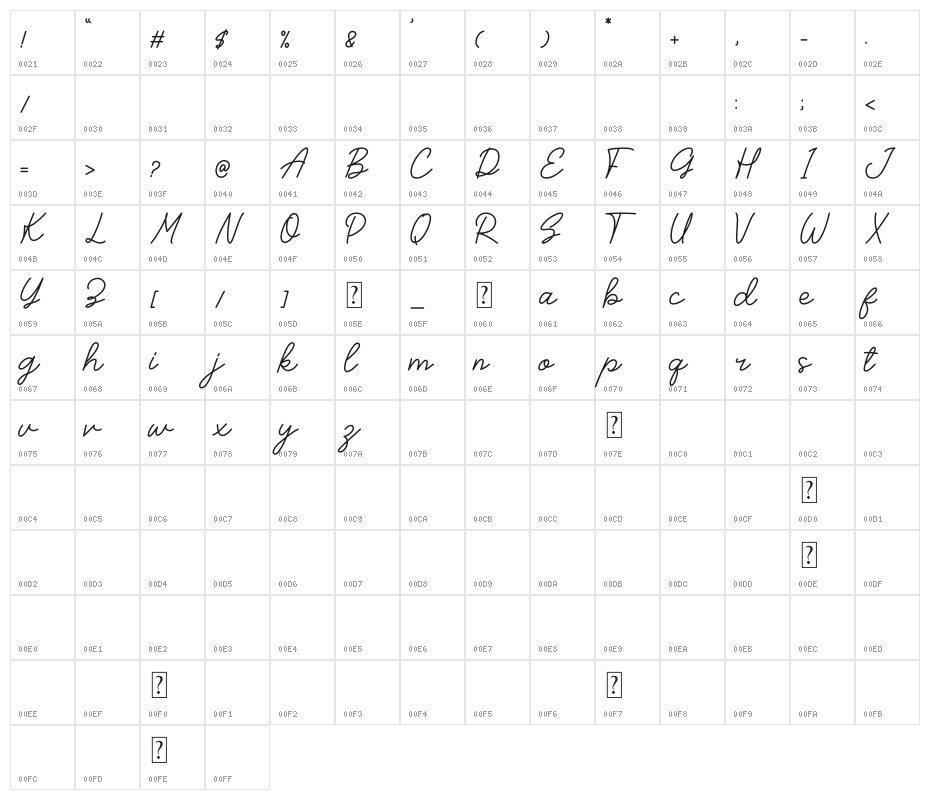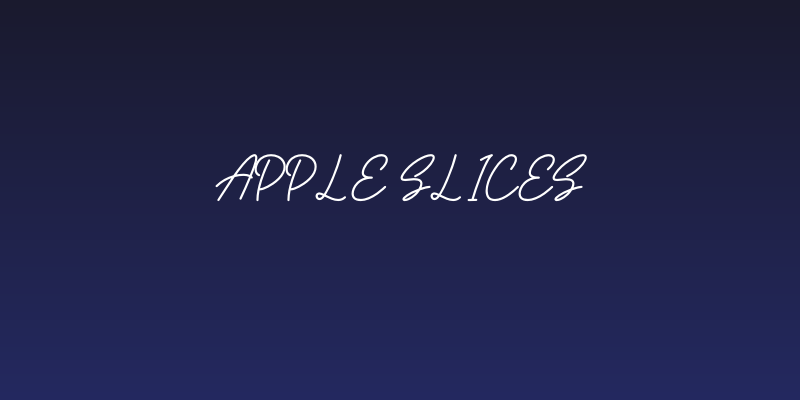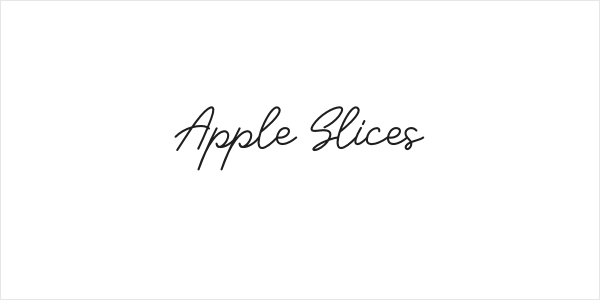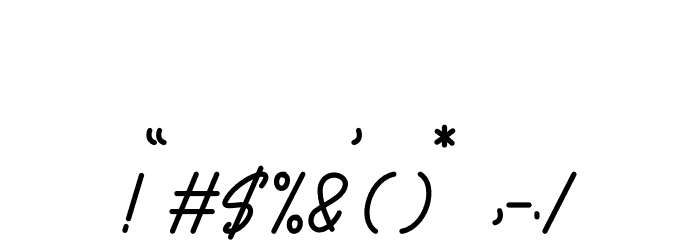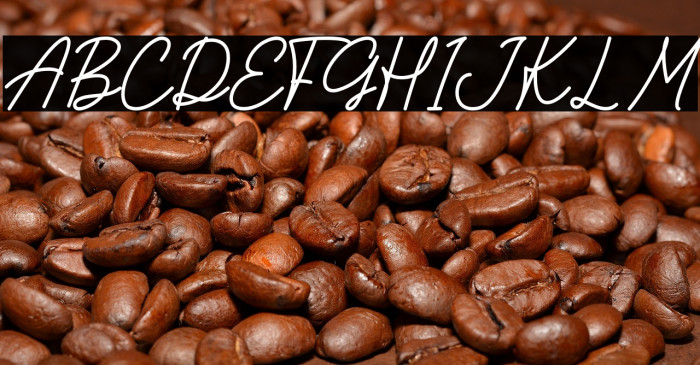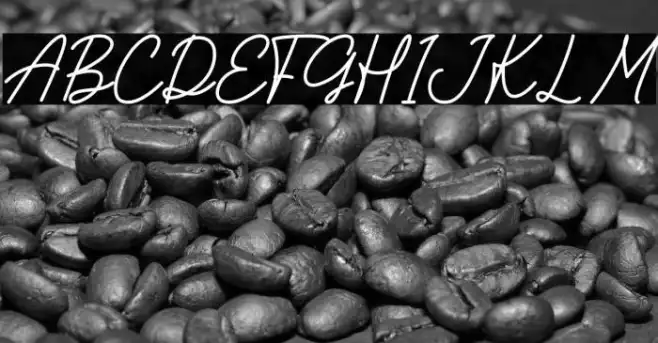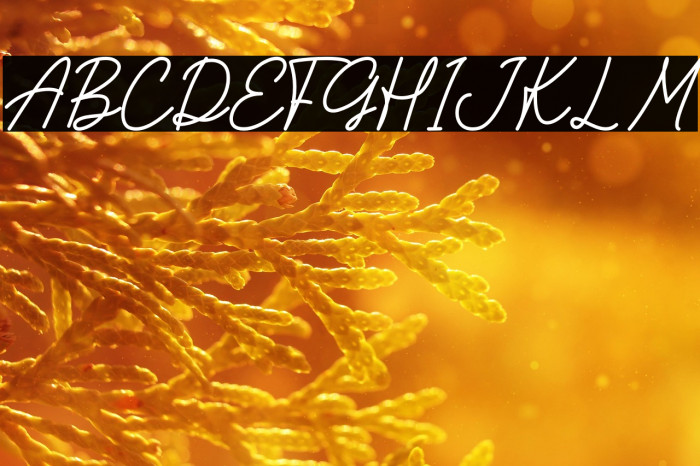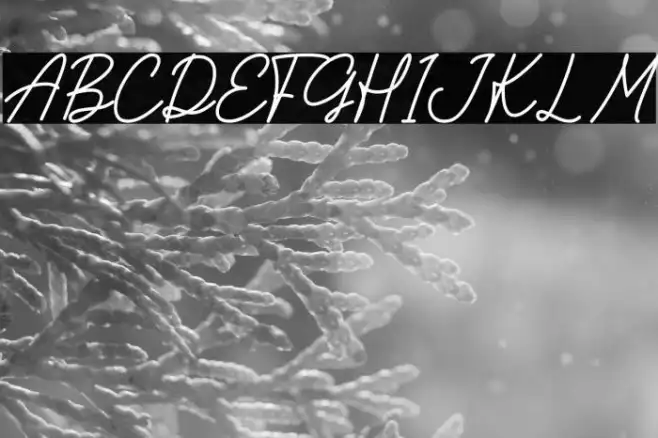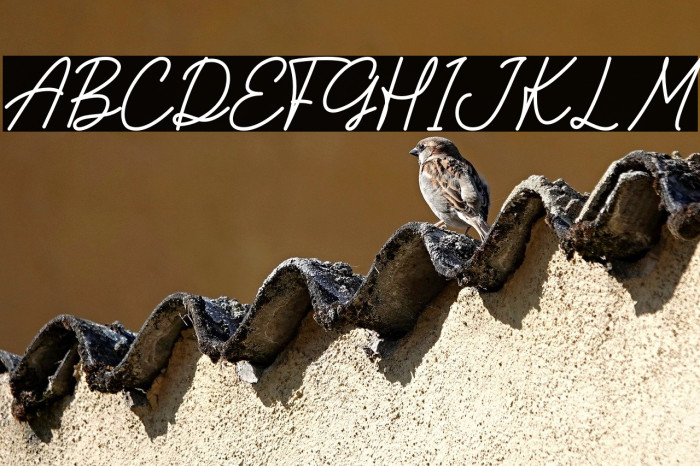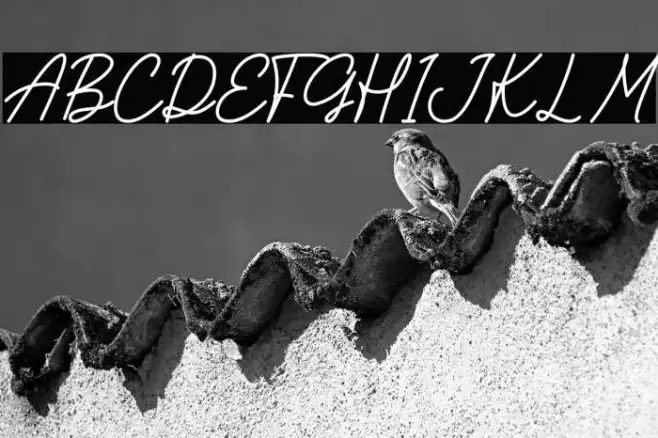
Apple Slices Font
Apple Slices Description
This font features a flowing, cursive style that mimics elegant handwriting. The letters are connected, creating a seamless and fluid appearance. The uppercase letters are slightly larger and more pronounced, while the lowercase letters maintain a consistent flow. The font includes a full set of numerals and a variety of special characters, all maintaining the same cursive style. The strokes are smooth and slightly varied in thickness, adding a touch of sophistication. This font is ideal for projects that require a personal or artistic touch, such as invitations, greeting cards, or branding materials.
| Proposed Projects | Ideal for invitations, greeting cards, branding, and artistic projects. |